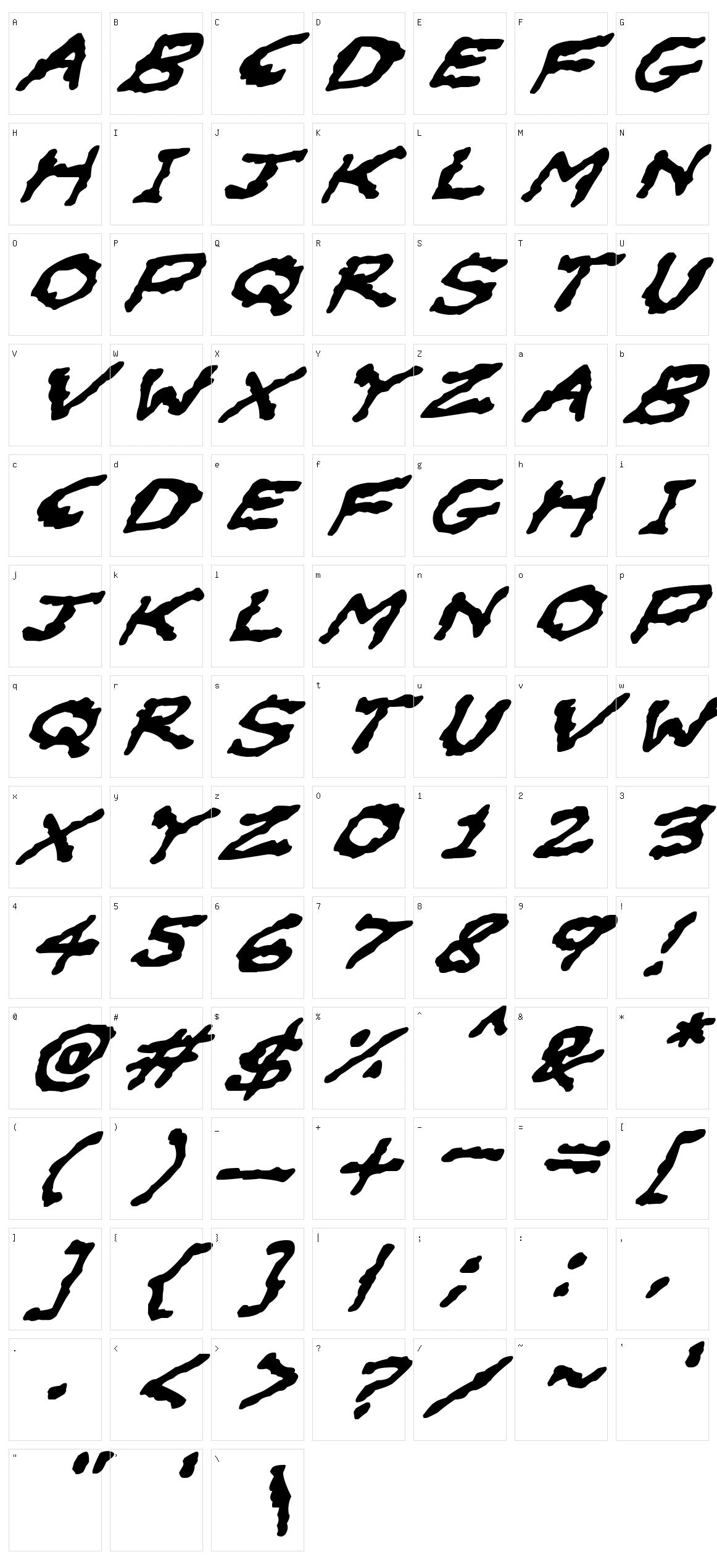
The free font Oilslick is carefully designed by Hawtpixel, showcasing a thoughtful balance of creativity and usability and falls under the Distorted font style. When you download the ZIP file, it contains only 279.66 KB of font files, making it lightweight and quick to download. Please review the license details below to understand permitted usage and distribution rights. If license information is not available, we recommend using this font for personal projects only or contacting the author directly for commercial usage permissions.